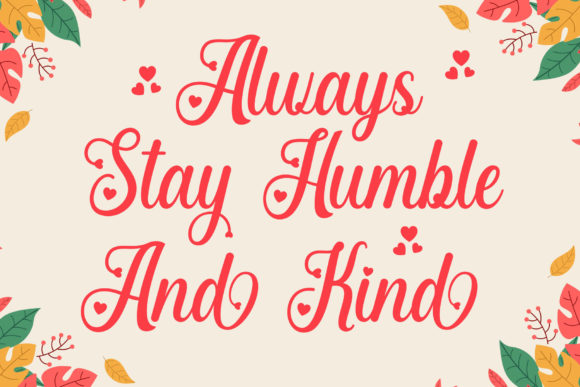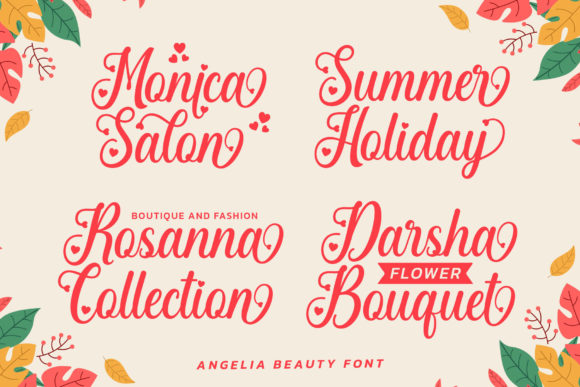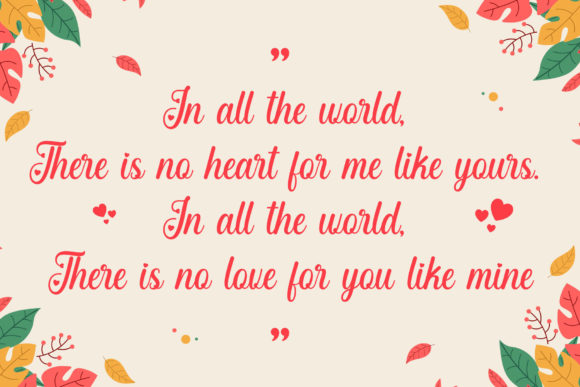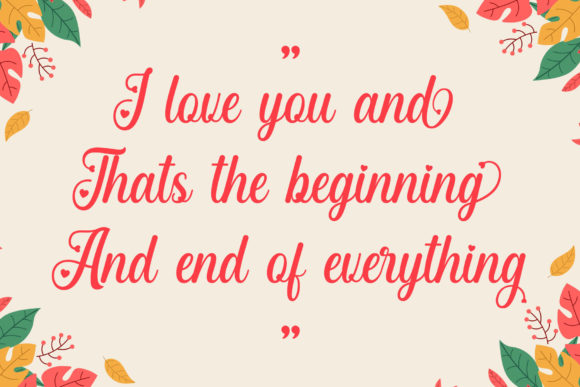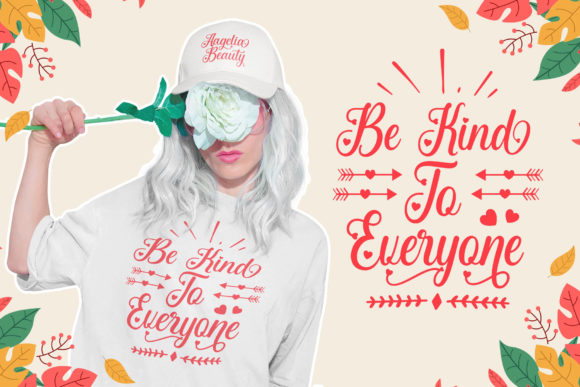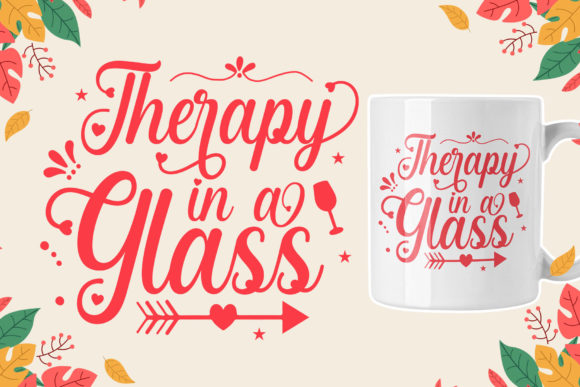
Introduction to Angelia Beauty Font
Angelia Beauty is a beautiful and elegant script font.
It has a classy, unique and modern look that can be used for logos, branding, invitations, stationery, wedding designs, greetings card, social media posts, and much more This font is PUA encoded which means you can access all of the glyphs and swashes with ease.
Key Features of Angelia Beauty Font